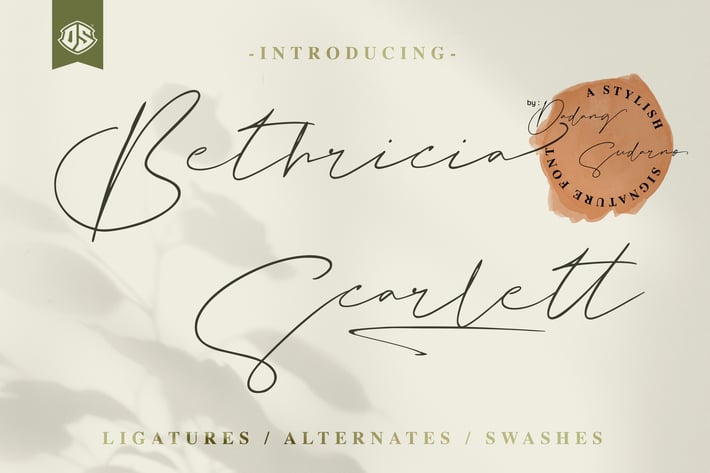
Bethricia Scarlett - A Stylish Signature Font
Bethricia Scarlett is a stylish signature font, suitable for logos, branding, product packaging, quotes, posters, t-shirts, covers, name cards, invitation cards, greeting cards, labels, musics, photography, watermark, social media headers and a lot more.
Complete set of uppercase and lowercase, multilingual, punctuation, ligatures, stylistic alternates a-z and swashes.